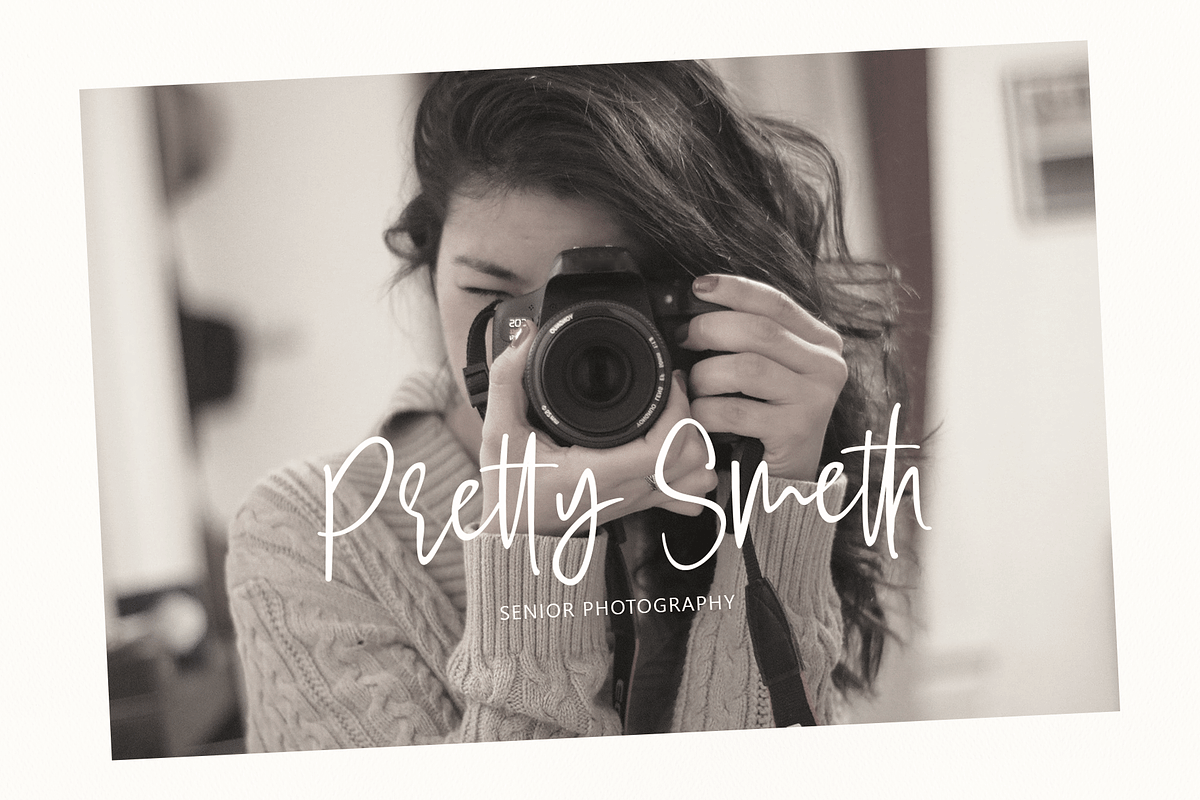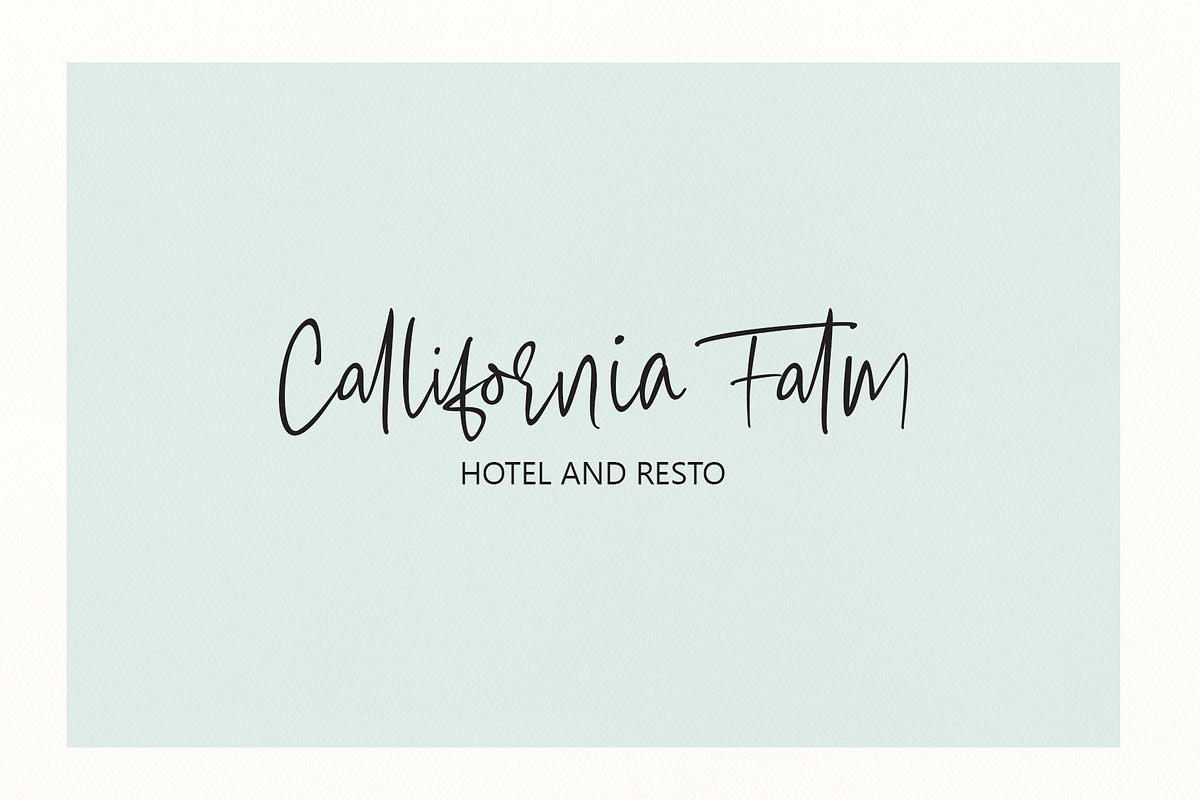
Roy Smith (BlackFridaySale)
Roy Smith a work that is purely handmade, has its own characteristics with the style of monoline. this is perfect for invitations, signatures, blogs, social media, business cards, product brands.
Roy Smith has Stylistic standard, Stylistic Alternate, Stylistic ligatures. and includes uppercase and lowercase letters, numbers and punctuation marks.